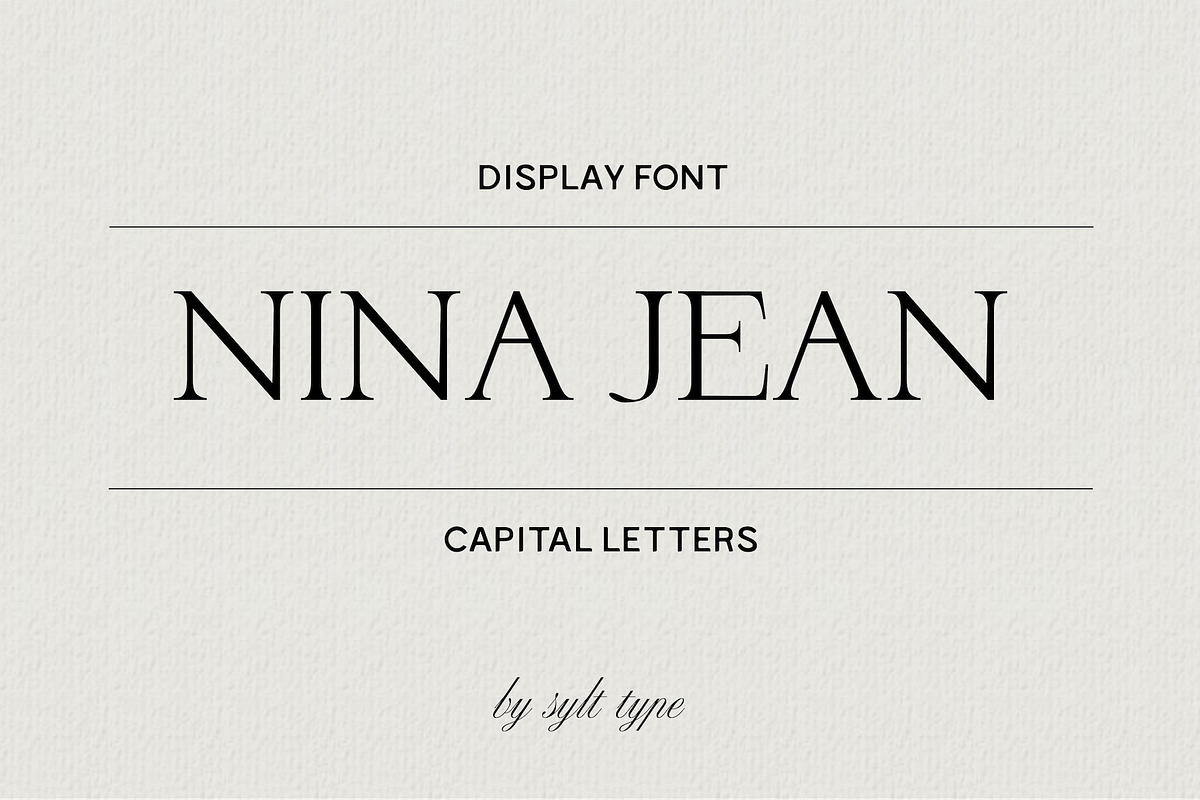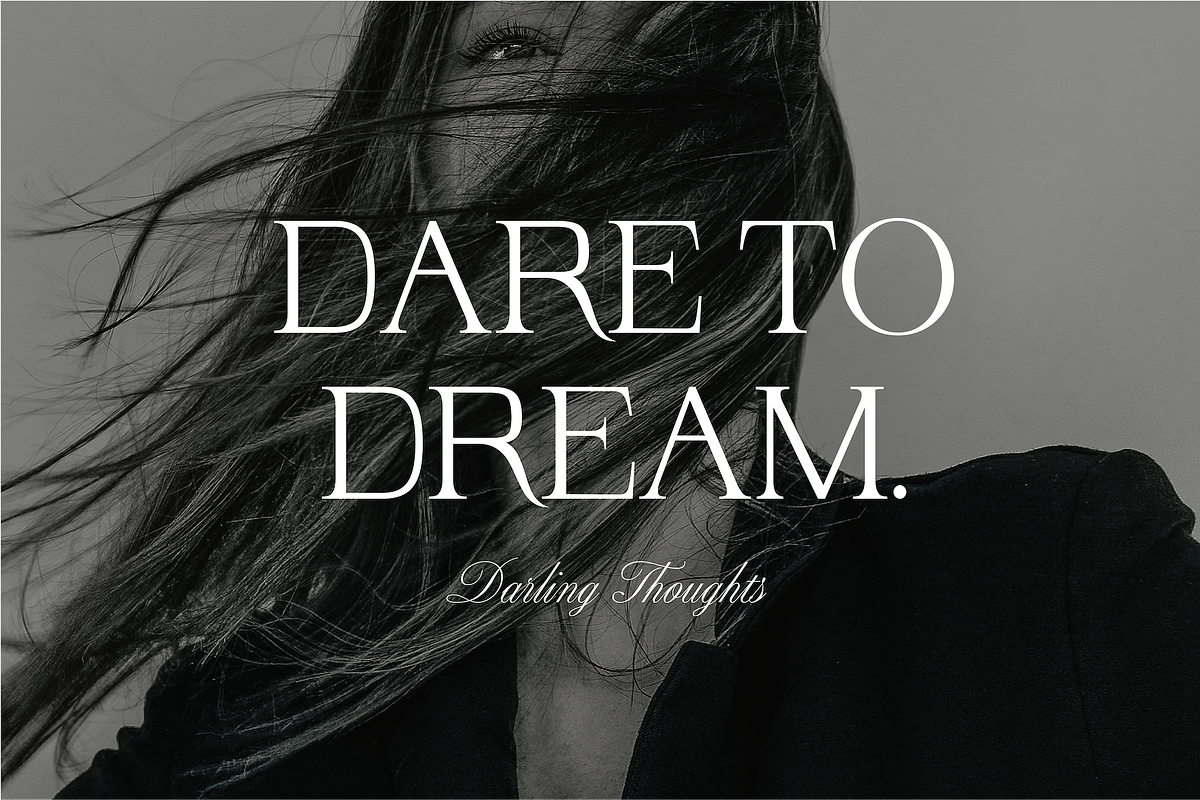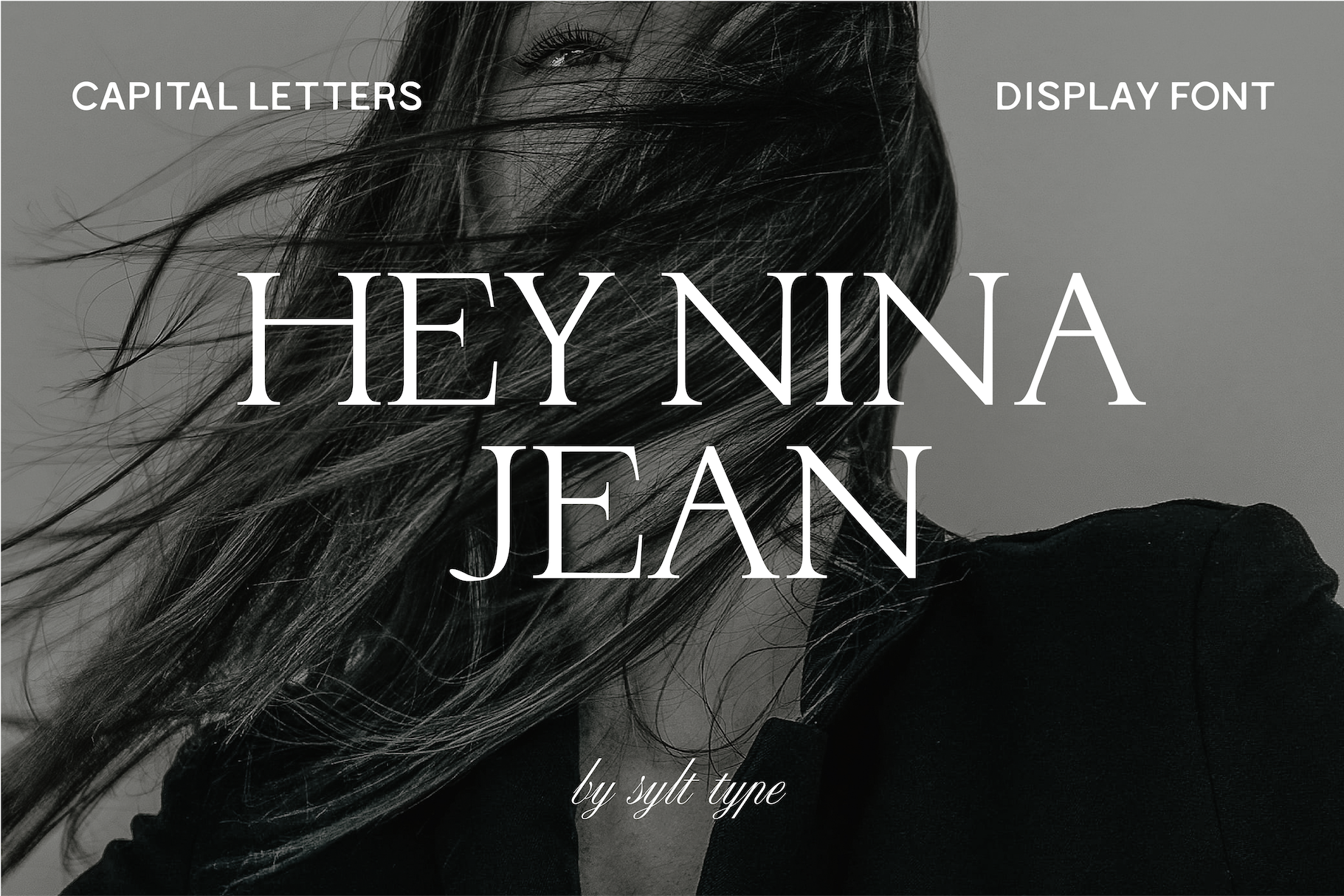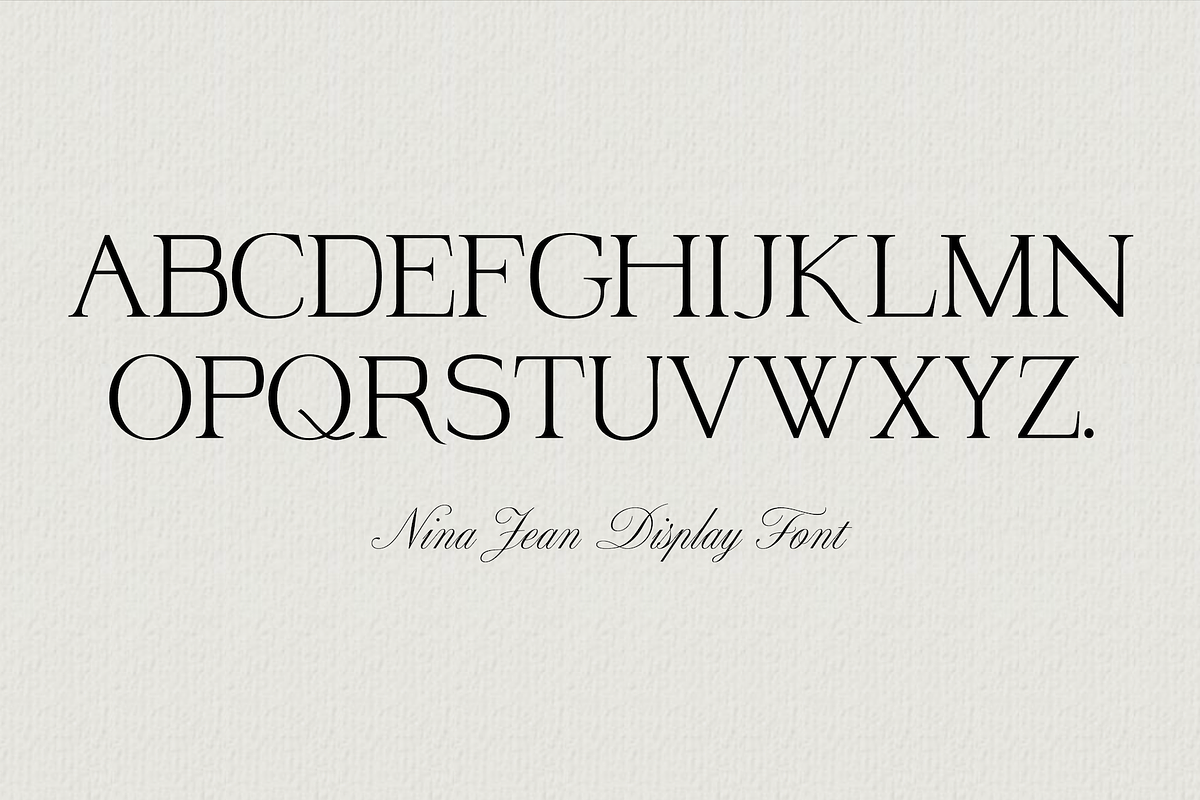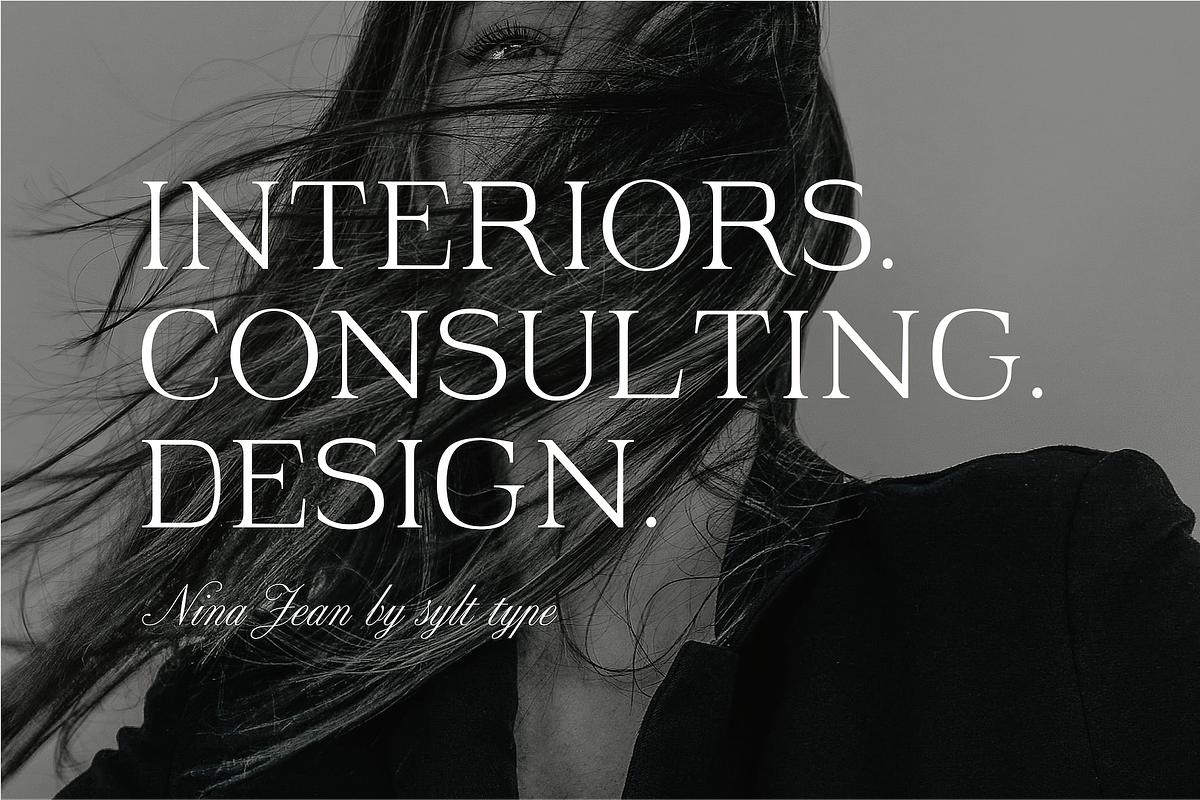
Nina Jean Display Font
Nina Jean is an all-caps display font perfect for your elevated designs. An elegant font with bold serifs, Nina Jean adds a luxurious elegant touch to your design, logo or brand.
- Great for logos and product designs
Capital letters & limited punctuation (period, comma, hyphen, quote, apostrophe/single quote, question mark, exclamation)